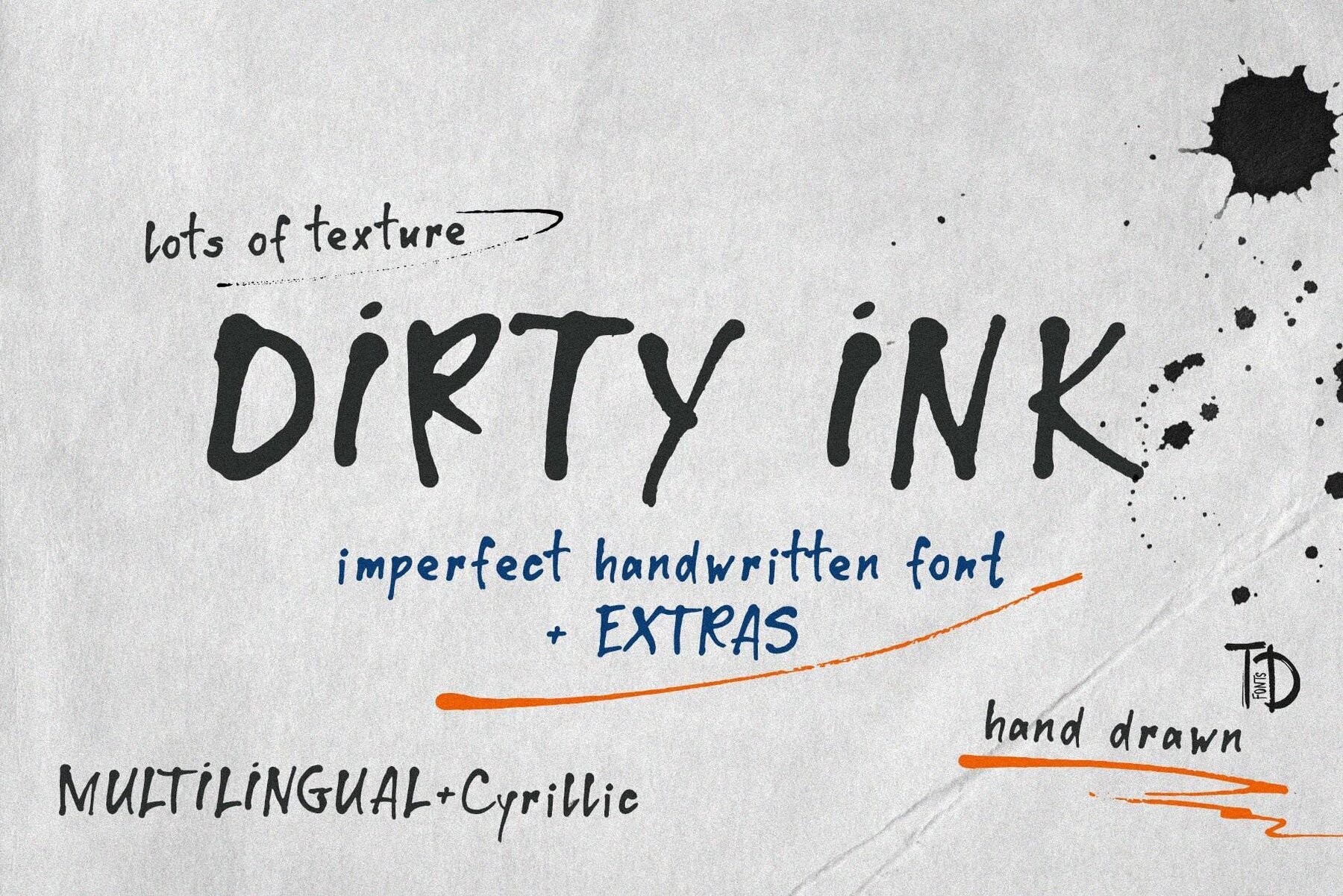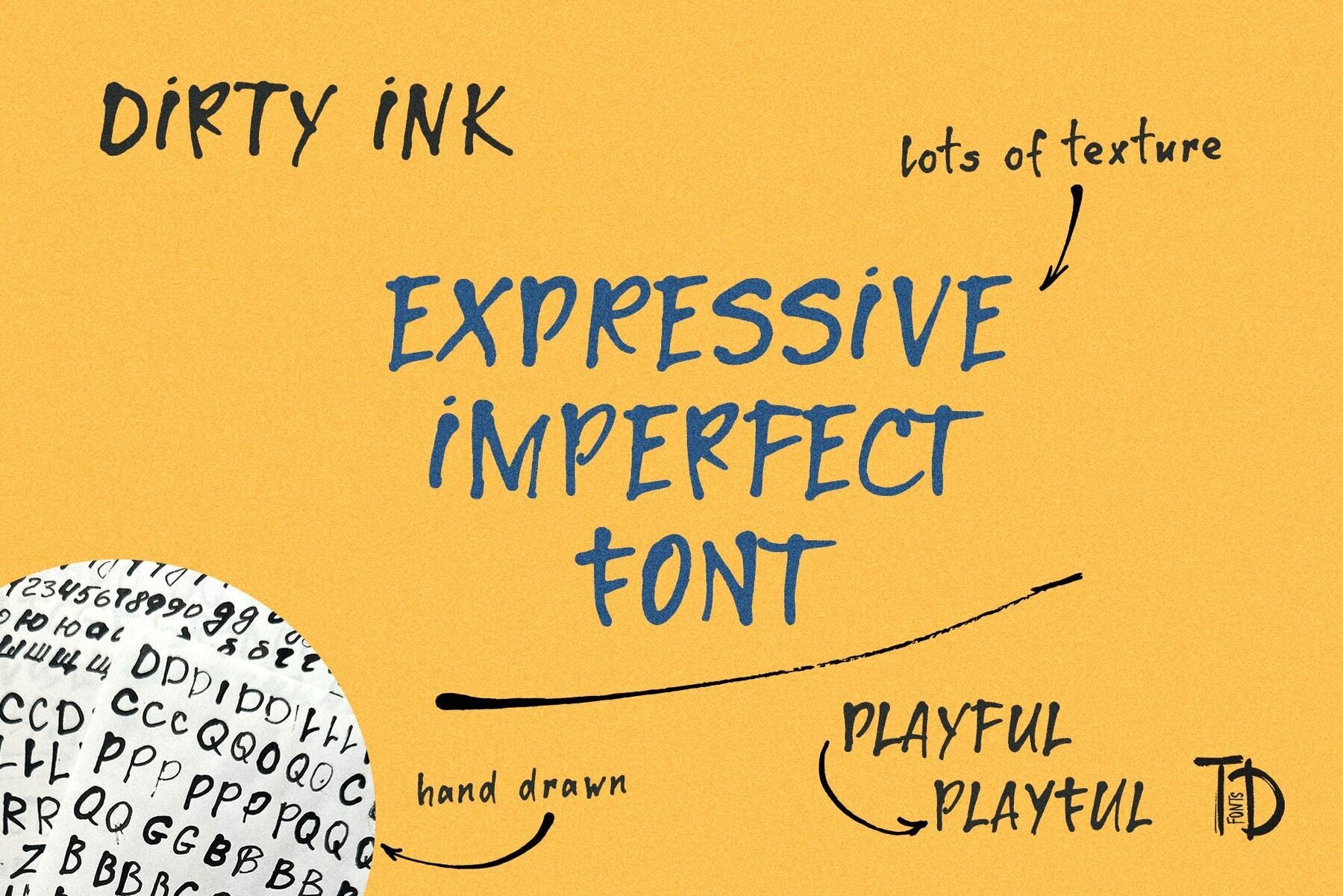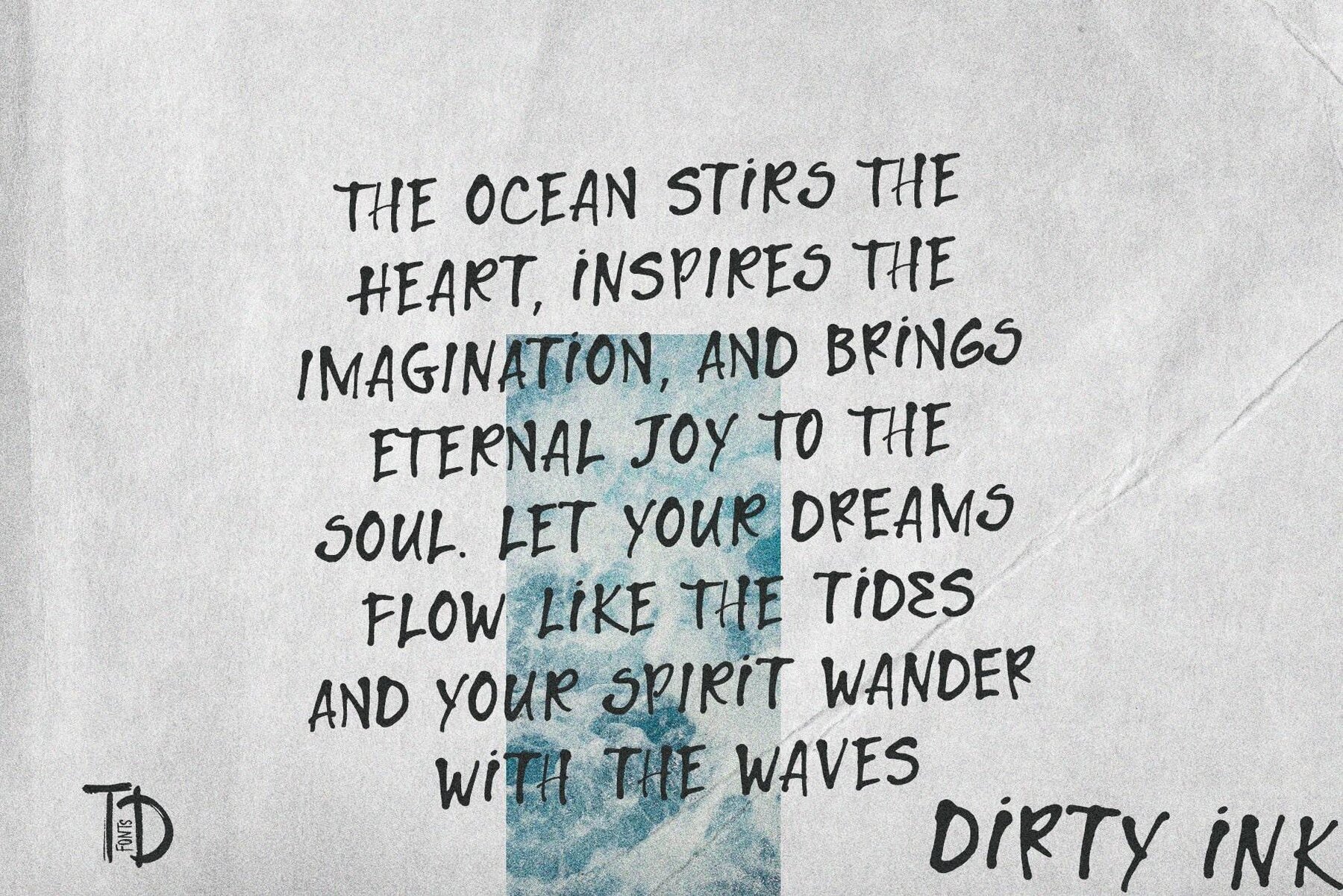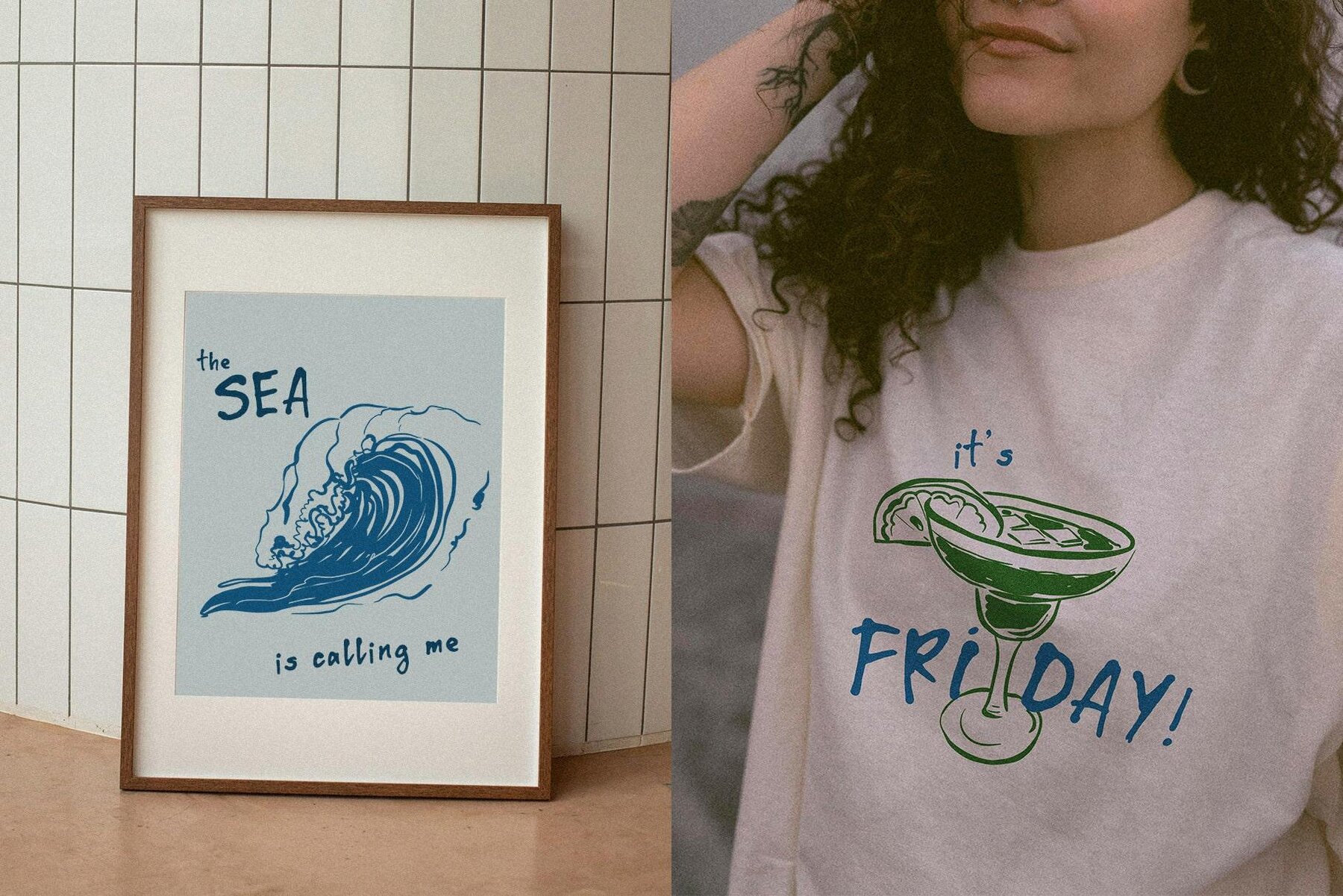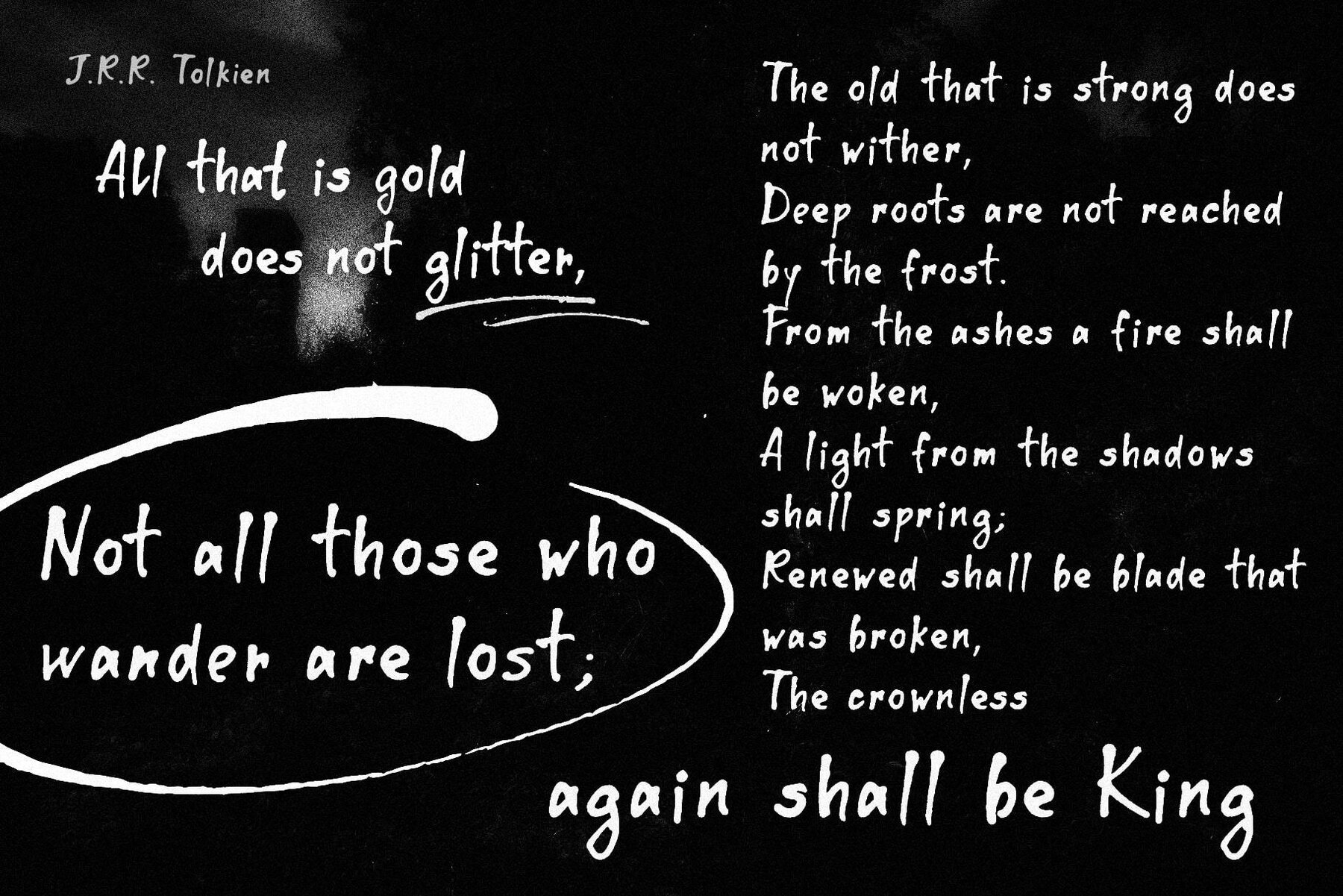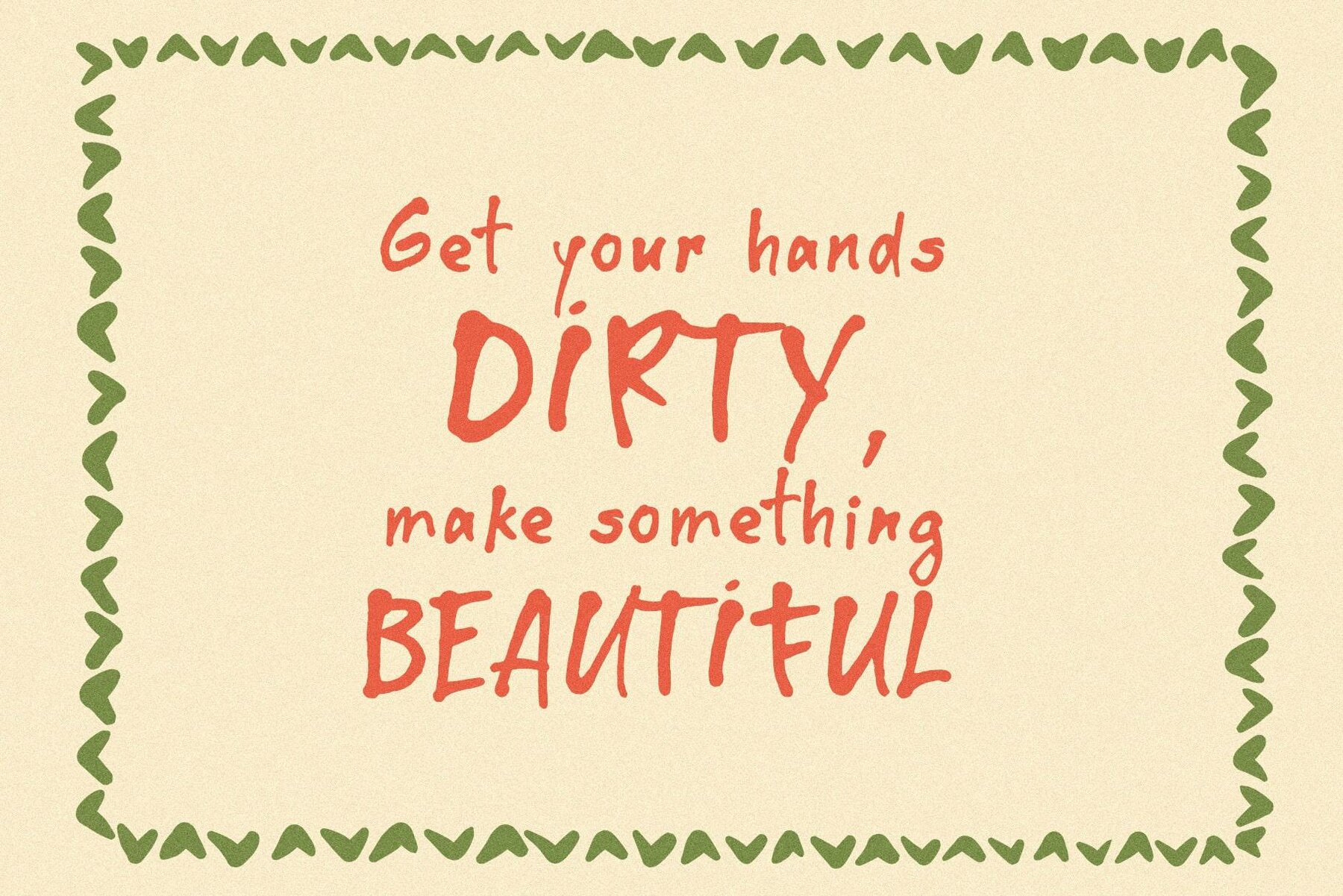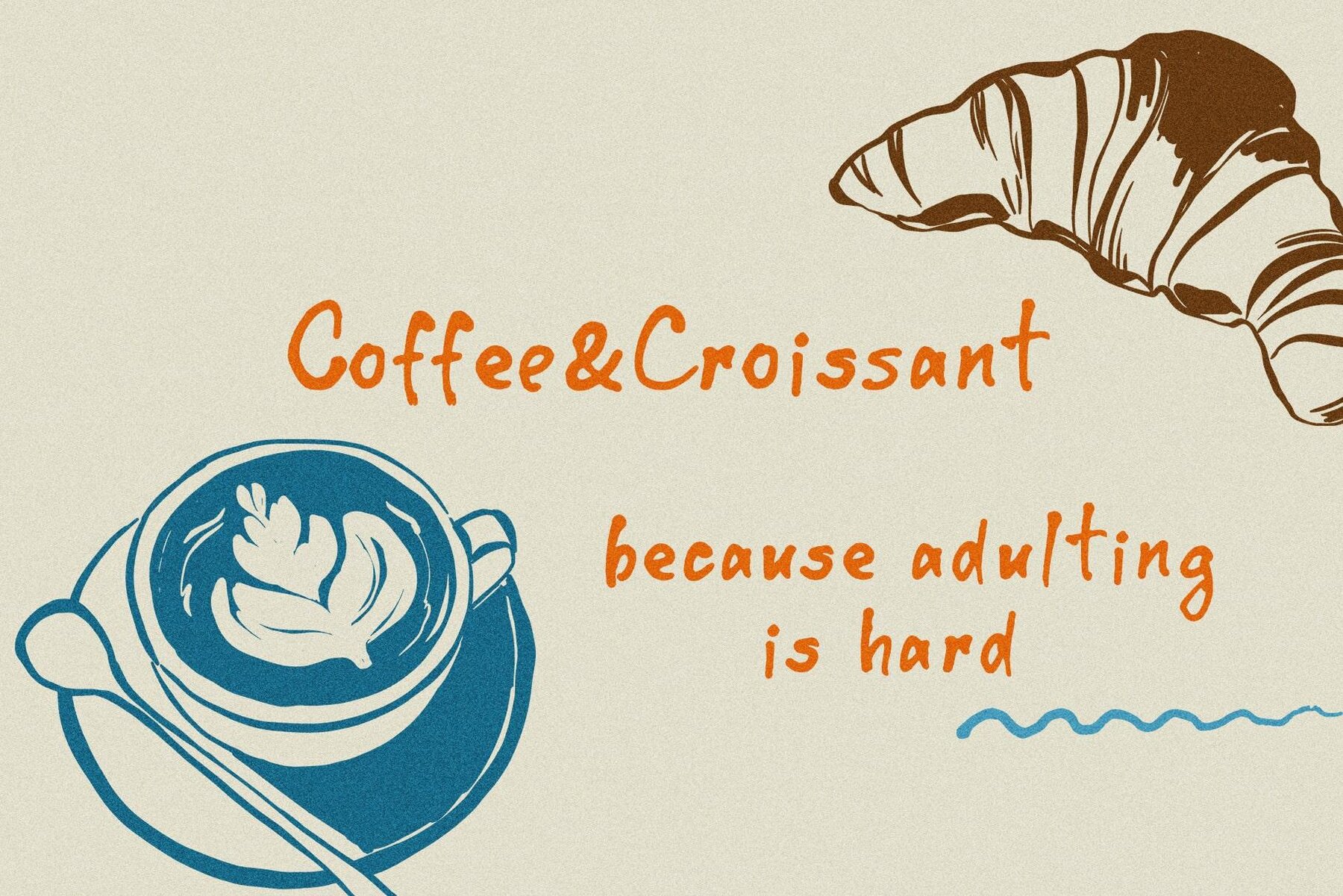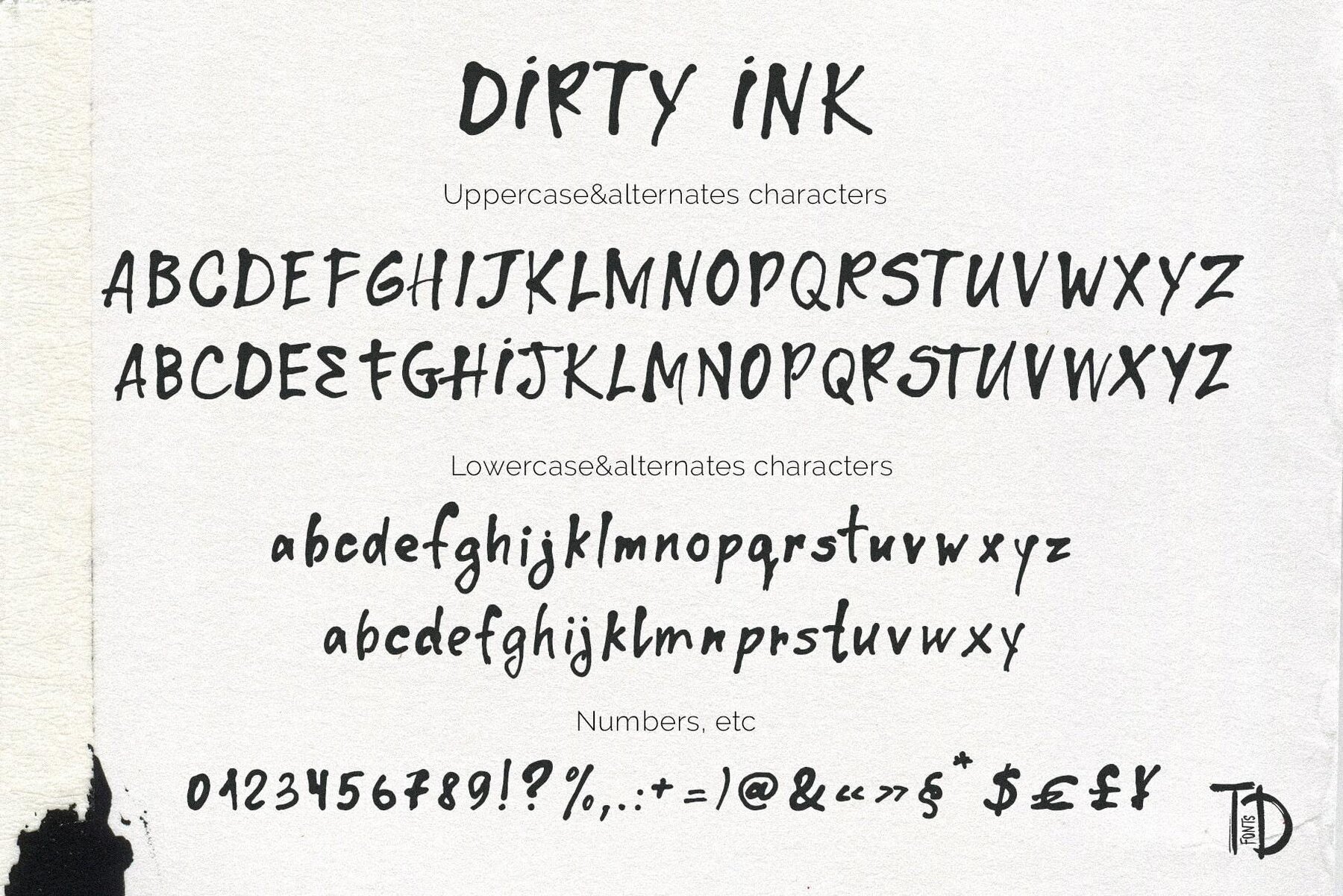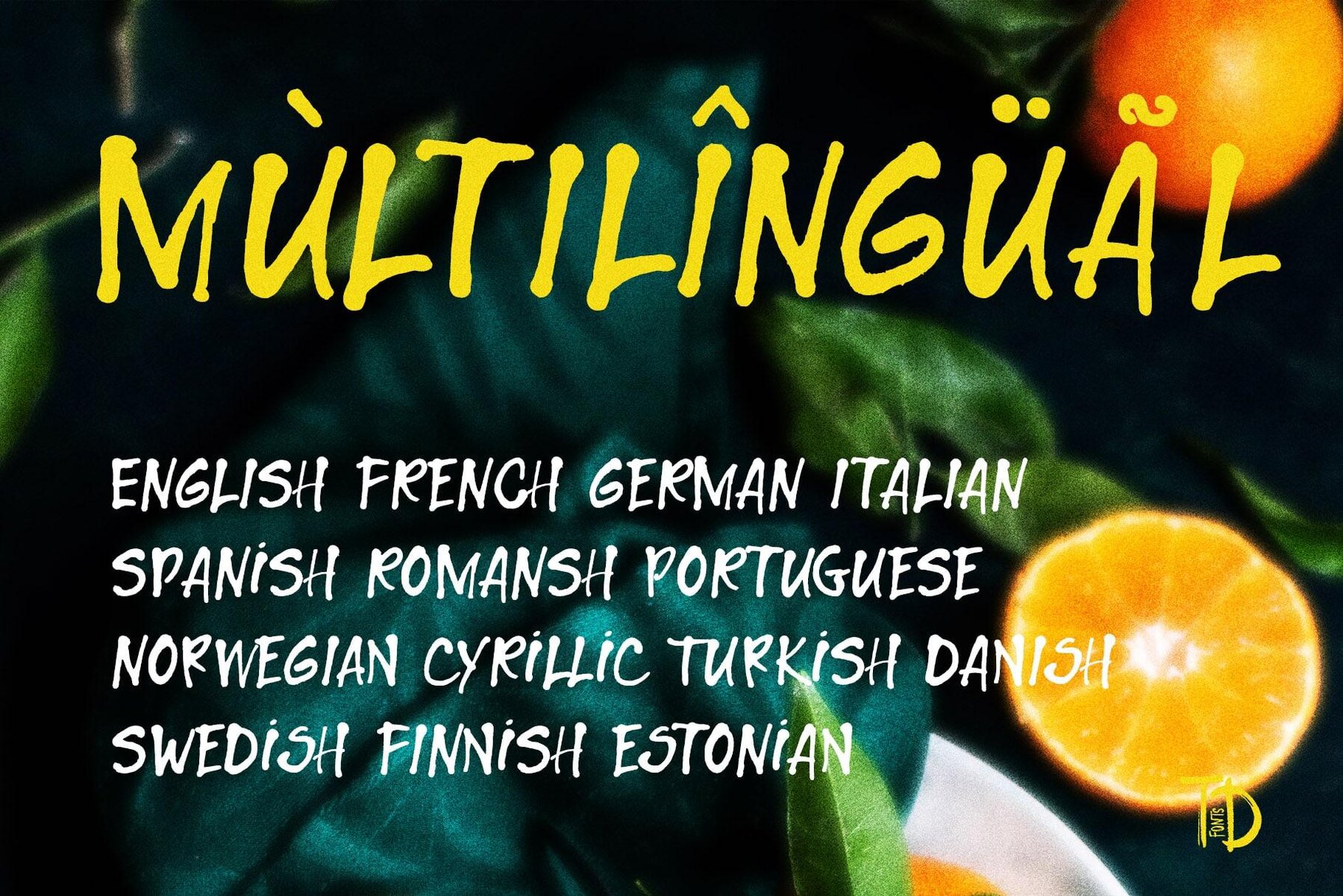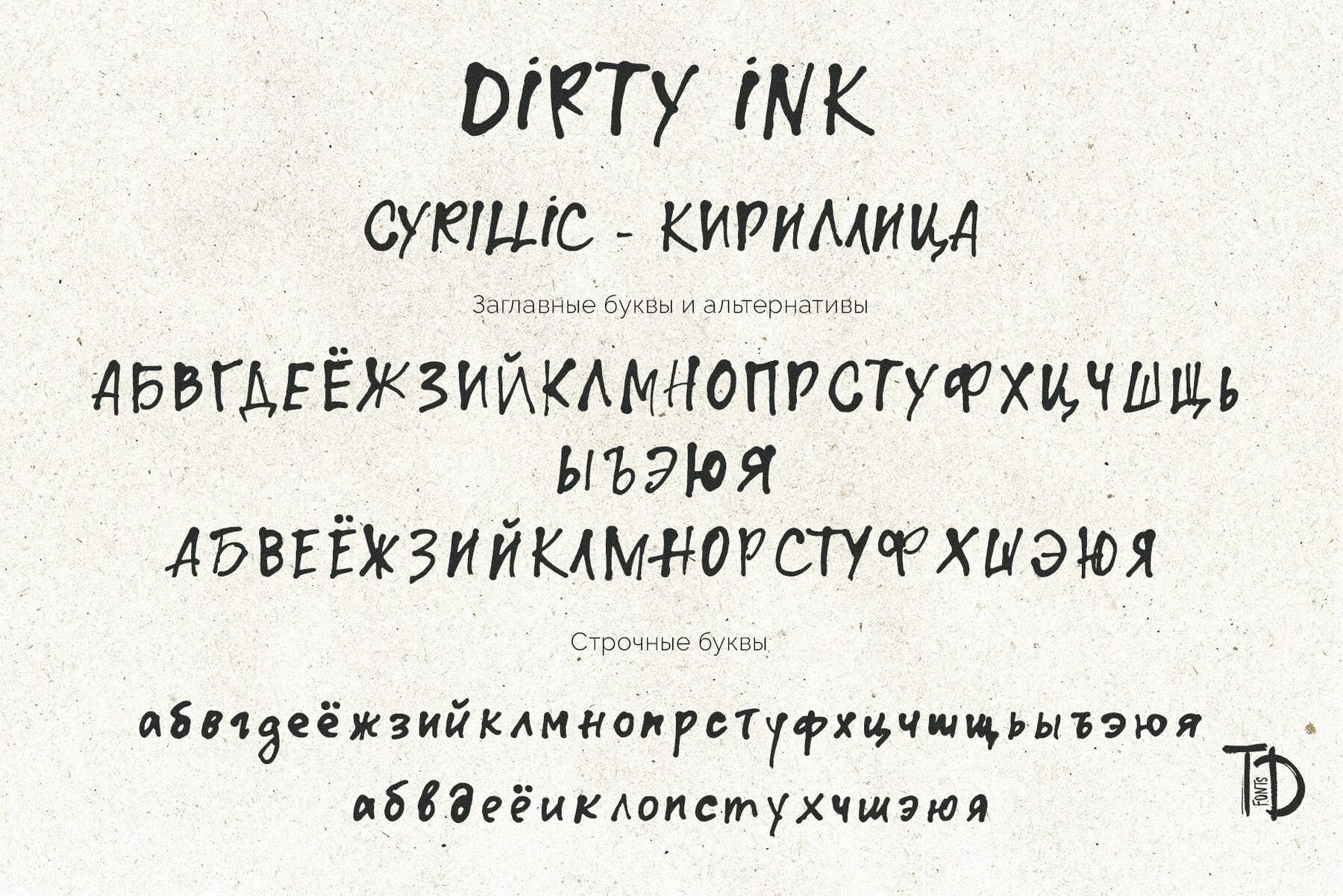
Dirty Ink Font
Dirty Ink is a unique, hand-crafted typeface that exudes character and creativity. Created using ink and the reverse side of a brush—essentially a simple stick—this font boasts a striking texture with lively, slightly crooked letters. The result is a distinctive, expressive font that captures the raw beauty of handmade design. Dirty Ink supports an extended Latin alphabet and Cyrillic characters, making it versatile for various languages. Additionally, it includes extra flourishes, borders, and arrows to enhance your designs. Perfect for branding, websites, posters, and any project that demands a personal touch, Dirty Ink is an accent font that speaks to the soul of craftsmanship. Whether you’re a designer, small business owner, blogger, or website creator, this font adds an authentic, human element to your work. Dirty Ink is more than just a font; it’s a celebration of imperfection, making each letter a work of art. WHAT YOU GET: Dirty Ink has extensive language support, it includes English, French, German, Italian, Spanish, Portuguese, Danish, Norwegian, Swedish, Finnish, Estonian, Romansh, Turkish, Cyrillic. Please note that text and mockups are not included.